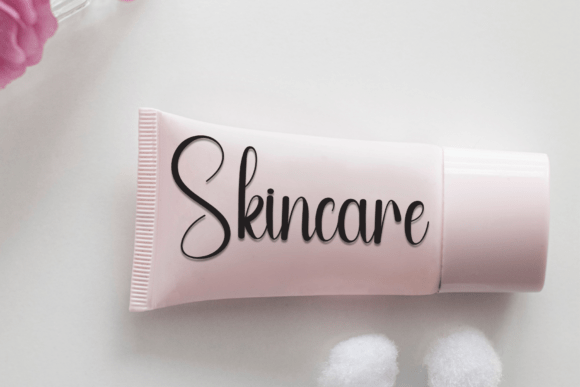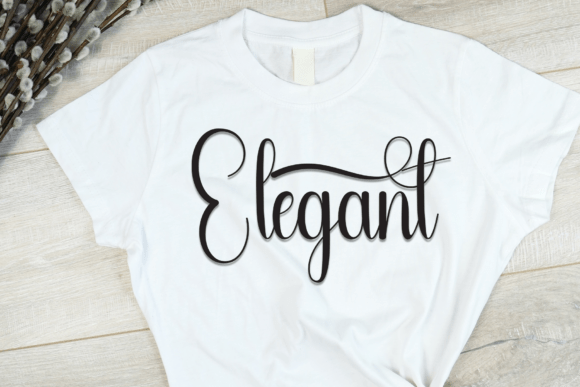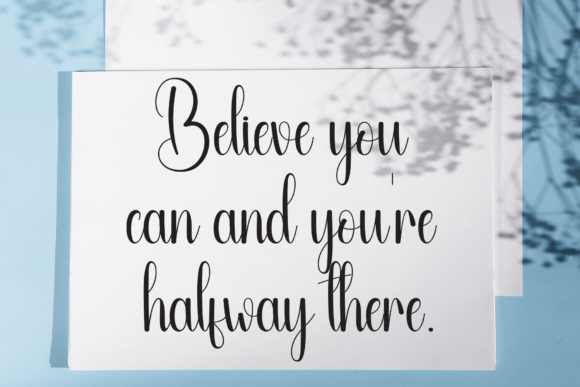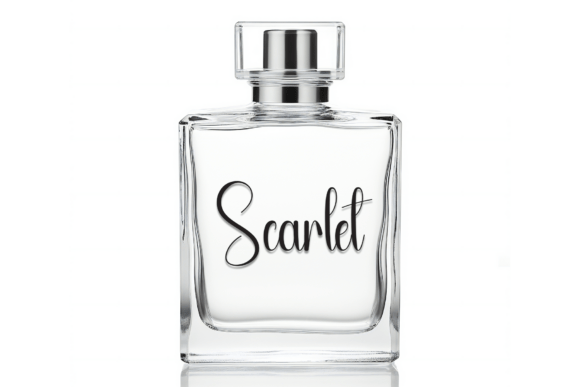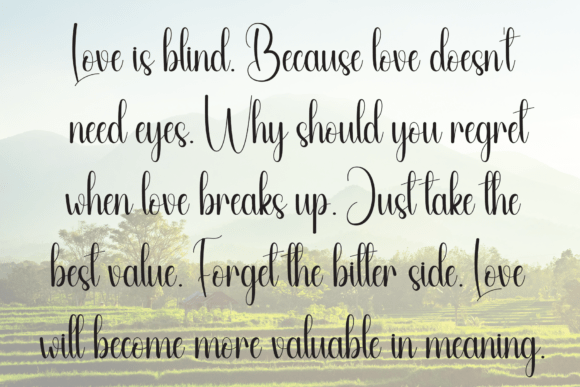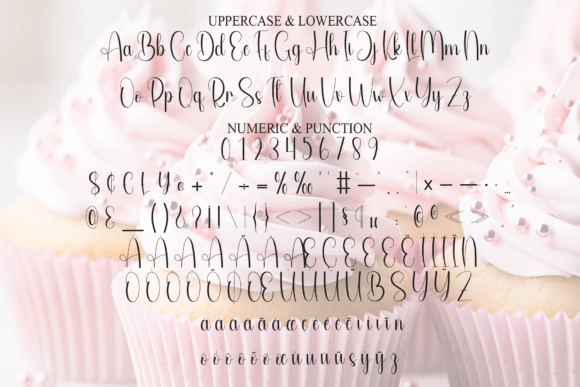
The Sweet Spot: Discovering the Elegance of Cupcake Font
I’ll never forget the time I was working on a wedding invitation project, and my client asked for a font that was both elegant and playful. I scoured the internet, tried out countless fonts, but nothing seemed quite right. That was until I stumbled upon Cupcake Font. Its fluid, graceful strokes immediately caught my eye, and I knew I had found the perfect fit. In this article, I’ll share my experience with Cupcake Font, its features, and how to make the most of it in your designs.
A First Impression: What I Love About Cupcake Font
Cupcake Font is a stylish handwritten script font that exudes elegance and charm. Here are some things I love about it:
- ✨ Elegant and refined: Cupcake Font has a sophisticated feel to it, making it perfect for high-end branding, invitations, and stationery.
- ✅ Smooth curves and natural flow: The font’s fluid strokes create a timeless, refined look that’s perfect for designs that need a touch of elegance.
- 💫 Versatile: Cupcake Font is suitable for a wide range of design projects, from digital to print.
The Not-So-Perfect: Small Quirks and Limitations
While Cupcake Font is an excellent choice for many design projects, there are a few quirks to be aware of:
- 🤔 Limited use in body text: Due to its elegant and refined nature, Cupcake Font might not be the best choice for long blocks of body text. It’s better suited for headings, titles, and short paragraphs.
- ⚠️ Some characters may require manual kerning: As with any script font, some characters may require manual kerning to achieve optimal results.
The Story Behind Cupcake Font
Cupcake Font was designed by a talented type designer who wanted to create a font that would evoke the feeling of elegance and sophistication. Inspired by traditional calligraphy and handwritten scripts, Cupcake Font was crafted to be both refined and charming. Whether you’re a designer, crafter, or creative hobbyist, Cupcake Font is sure to delight.
| Font Name | Cupcake Font |
| What is Cupcake Font best suited for? | Cupcake Font is perfect for branding, invitations, stationery, and any design project that requires a touch of elegance and sophistication. |
| Is Cupcake Font available in different languages? | Cupcake Font may not support all languages, but it does include a range of characters and glyphs to support various languages. |